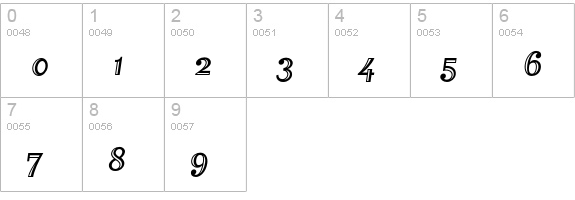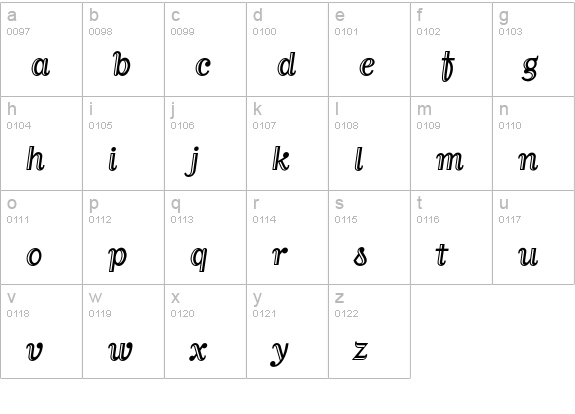
MatrixInlineScriptOldstyle Font Details
MatrixInlineScriptOldstyle font is a visually striking typeface that exudes elegance and sophistication. Its intricate, calligraphic design combines classical elements with a modern twist, making it a perfect choice for projects that require a touch of refinement. The fluid strokes and graceful curves of this font add a sense of movement and energy to any text, capturing the eye and drawing the reader in. What makes MatrixInlineScriptOldstyle font even more appealing is that it is available for free download at FontsMarket.com. This means that you can easily access this stunning font and use it in your creative projects without any cost. Whether you're working on invitations, posters, or branding materials, MatrixInlineScriptOldstyle font offers a unique and stylish way to elevate your design. Download it today and add a touch of sophistication to your work.